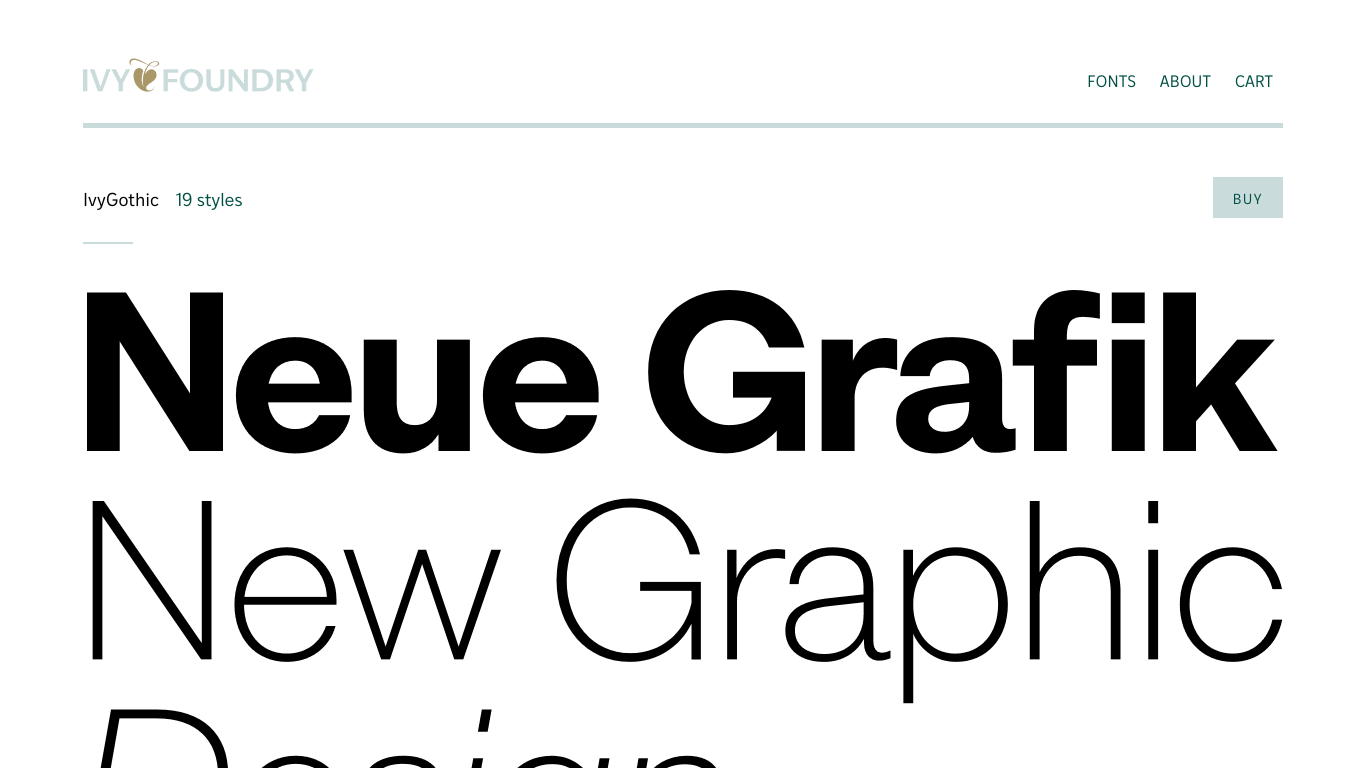
Ivy Foundry
Denmark
2016
​The Ivy Foundry is an independent type design studio based in Denmark, founded in 2016 by graphic designer Jan Maack. The foundry is named after the 'fleuron,' a typographic ornament symbolizing an ivy leaf. Maack, with a background in art direction and graphic design since 1990, established the foundry to create versatile typefaces that cater to diverse design needs. Notable typefaces from The Ivy Foundry include IvyPresto (a 16th-century inspired serif in three optical sizes), IvyMode (a high-contrast sans with flared strokes), IvyOra (a Dutch Old Face revival from historical specimens), IvyJournal (a readable transitional serif), and IvyStyle Sans (a clean, humanist sans for print and digital use).